1. Introduction
Weddings are a once-in-a-lifetime event, and every detail matters—from the venue and dress to the invitations. Among these details, typography plays a crucial role in setting the tone. One of the most sought-after design elements today is the elegant handwritten font pack for wedding invitations, which adds romance, sophistication, and personality to printed or digital wedding stationery.
2. Why Fonts Matter in Wedding Invitations
Fonts are more than just letters—they communicate mood and style. A playful script suggests casual fun, while a delicate handwritten font conveys elegance and intimacy. The choice of typography often becomes the first impression guests have of the wedding theme.
According to CreativeBloq, typography is one of the most powerful tools to express personality in design, and for weddings, it sets expectations for the entire event.
3. What Makes Handwritten Fonts Elegant?
Handwritten fonts mimic calligraphy and penmanship, but elegance comes from:
- Smooth, flowing strokes.
- Balanced spacing and kerning.
- Flourishes that remain tasteful rather than excessive.
- Versatility in uppercase and lowercase combinations.
An elegant handwritten font feels timeless yet contemporary—perfect for formal yet personal wedding invitations.
4. The Rise of Font Packs for Weddings
Instead of a single font, designers often prefer font packs: collections of multiple styles (e.g., regular, bold, italic, alternates, or matching sans-serifs). These packs:
- Offer versatility for headers, body text, and accents.
- Ensure consistency across different wedding materials (invitations, menus, signage).
- Provide cost-effective solutions compared to buying fonts individually.
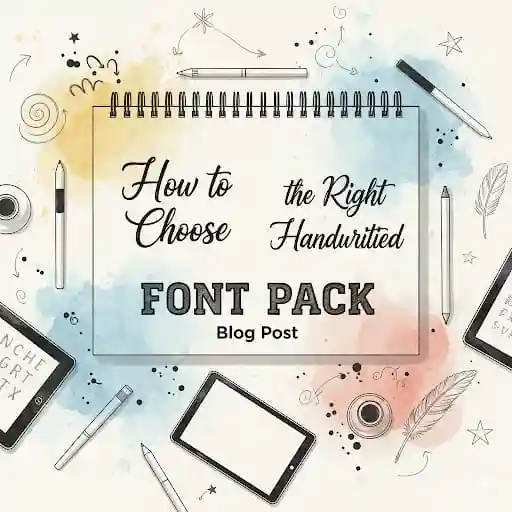
5. How to Choose the Right Handwritten Font Pack
5.1 Style Consistency
Match the font to your wedding theme—romantic, rustic, bohemian, or luxurious.
5.2 Legibility and Readability
Avoid overly decorative scripts that become hard to read, especially for essential details like names, dates, and venues.
5.3 Emotional Connection
Fonts should reflect the couple’s personality. A chic, modern handwritten font might suit a city wedding, while a floral script fits a garden celebration.
5.4 Versatility Across Mediums
Ensure the font works in both print and digital formats, from foil-stamped cards to online RSVP pages.
6. Examples of Elegant Handwritten Fonts for Wedding Invitations
- Classic Calligraphy Fonts: Timeless, formal, and refined.
- Modern Handwritten Scripts: Minimal yet stylish, suitable for contemporary weddings.
- Rustic Handwriting Fonts: Casual elegance, perfect for outdoor or barn weddings.
👉 For example, Away Stress Font from RaisProject is a graceful handwritten option ideal for wedding names and headlines.
7. Best RaisProject Font Packs for Weddings
Here are some curated RaisProject fonts that perfectly fit the theme:
- Away Stress Font – elegant flowing strokes, perfect for names and headings.
- Ariella Hailey Font– versatile handwritten pack with alternates, great for romantic invitations.
- Britney Agatha Font – a sophisticated calligraphy style for formal events.
- Back and Forward Font – playful yet refined script, ideal for accents like “Save the Date”.
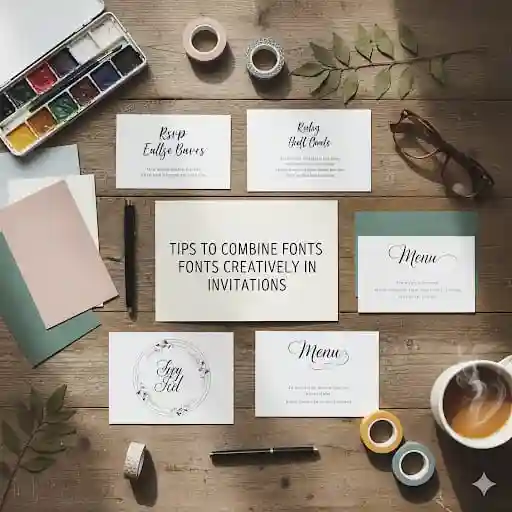
8. Tips to Combine Fonts Creatively in Invitations
- Pair a bold handwritten font for names with a clean sans serif for details.
- Use decorative alternates for headlines but simpler versions for body text.
- Stick to 2–3 fonts maximum to avoid clutter.
For example: combine Serene Script for the couple’s names with MonoTech Sans (a clean modern font) for the invitation details.
9. Conclusion
Choosing the right elegant handwritten font pack for wedding invitations is an art that combines style, readability, and emotional resonance. By selecting versatile font packs from RaisProject, couples and designers can craft invitations that truly reflect the beauty of the occasion.
With the right typography, your wedding invitation becomes more than paper—it becomes a memorable keepsake.